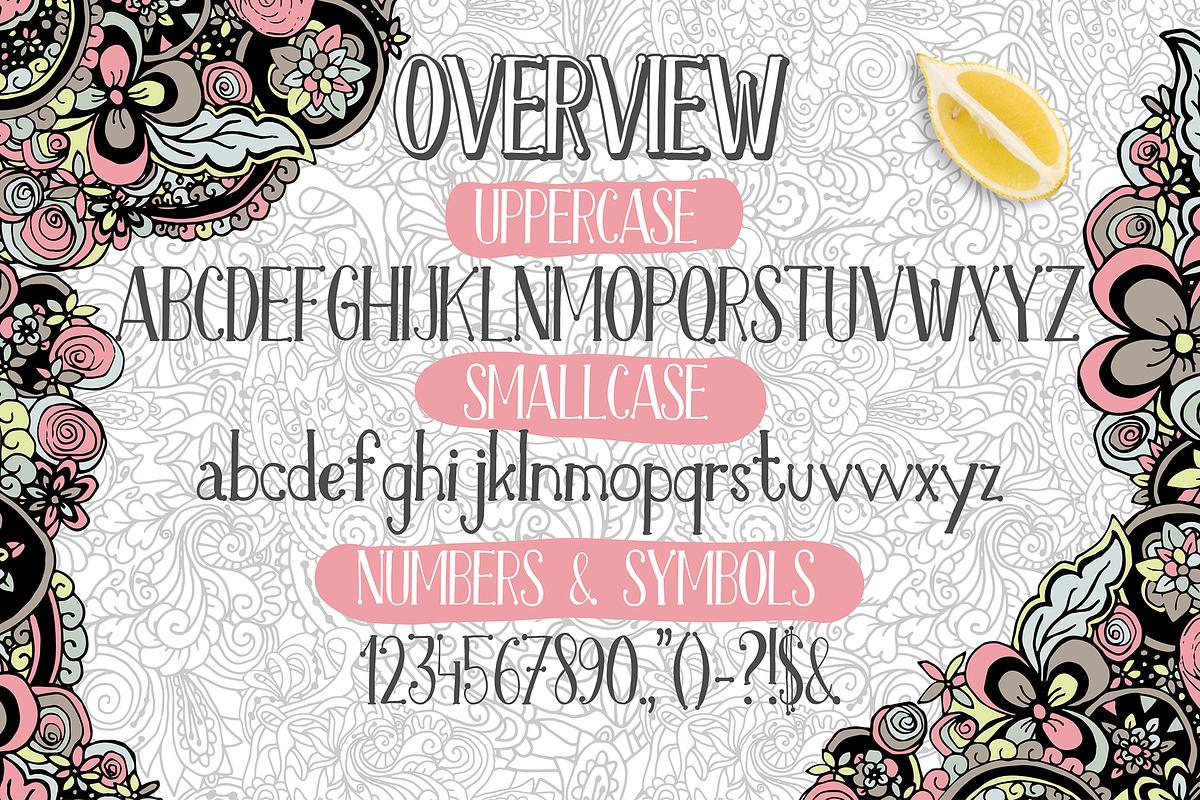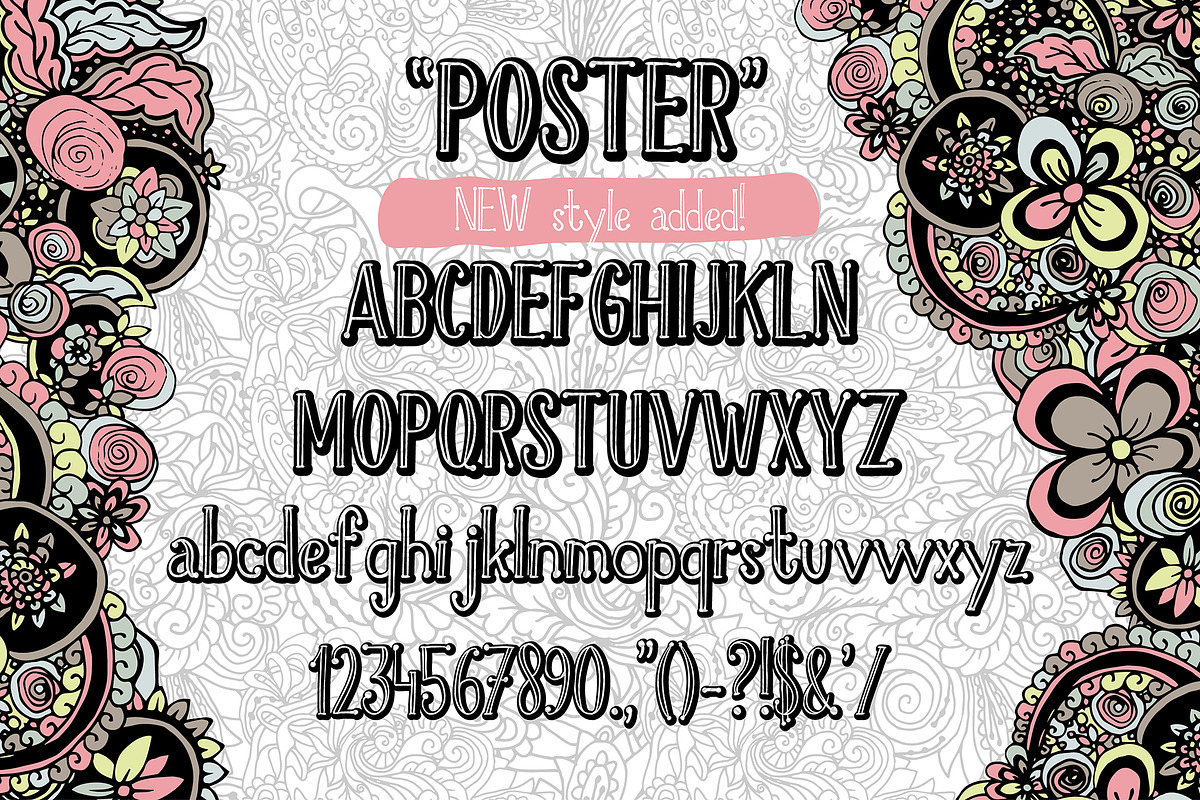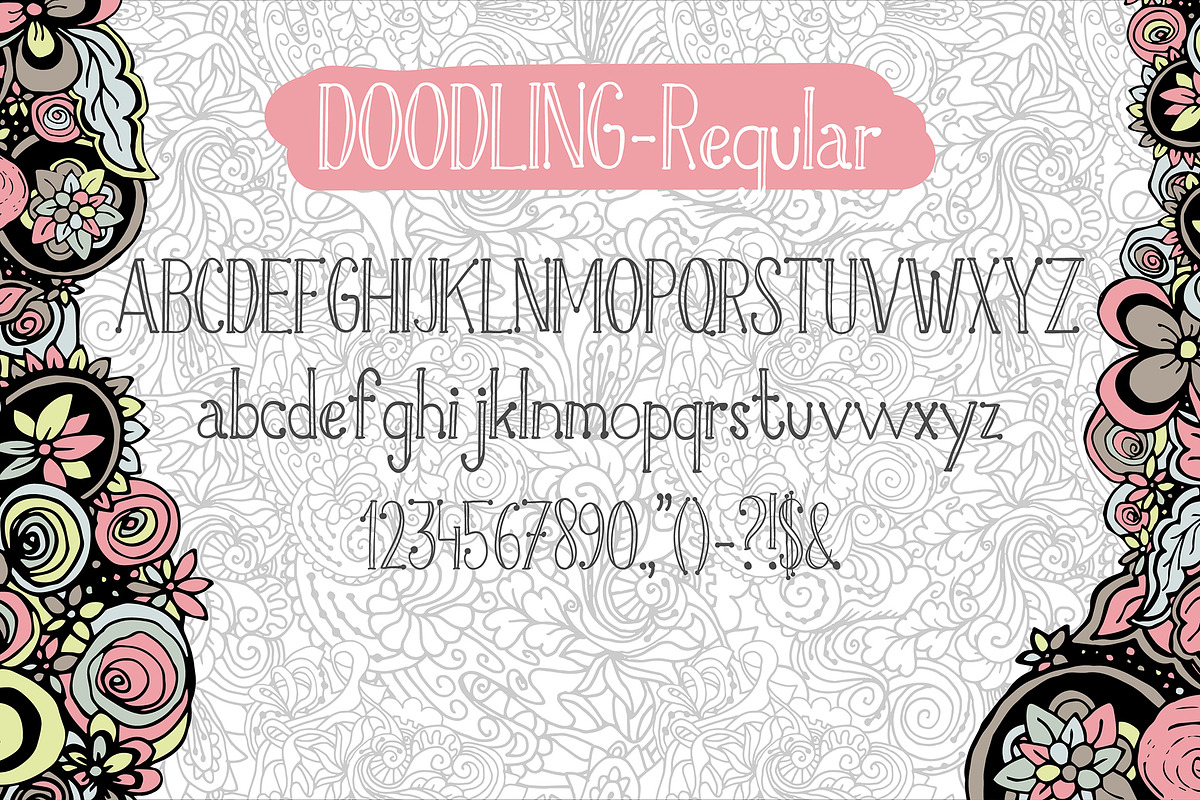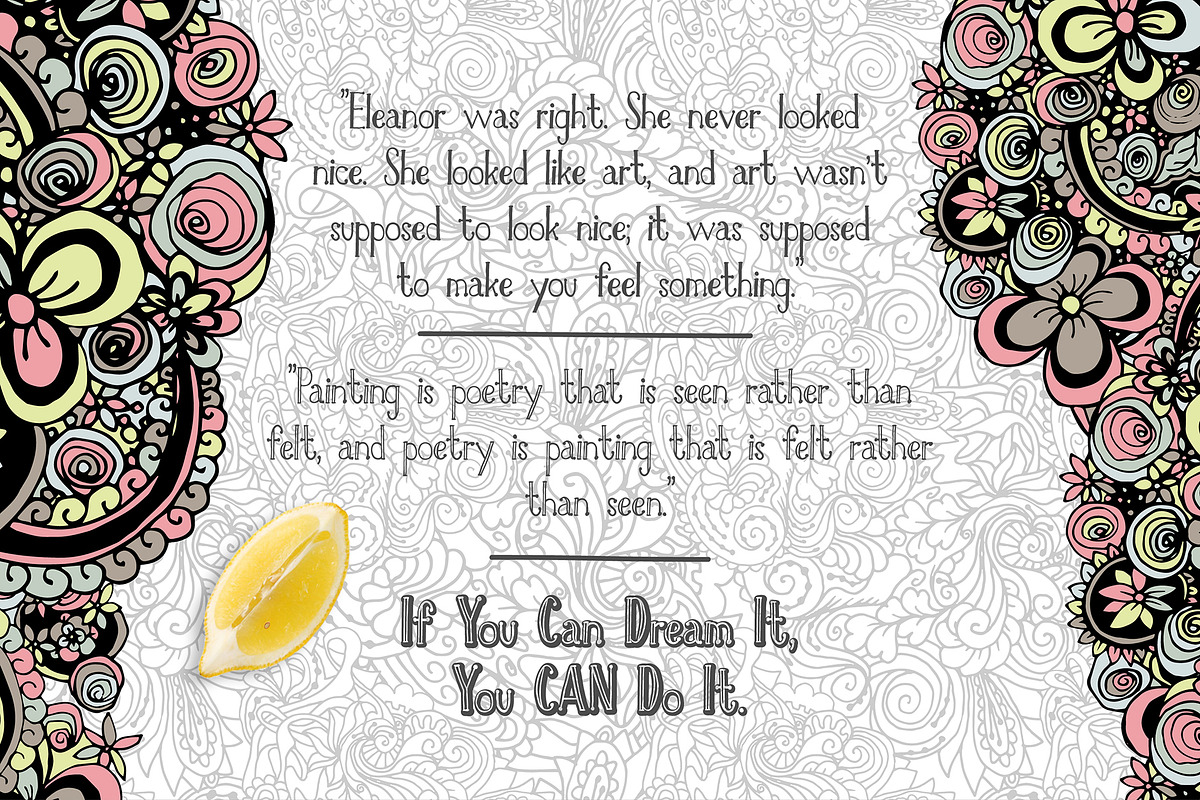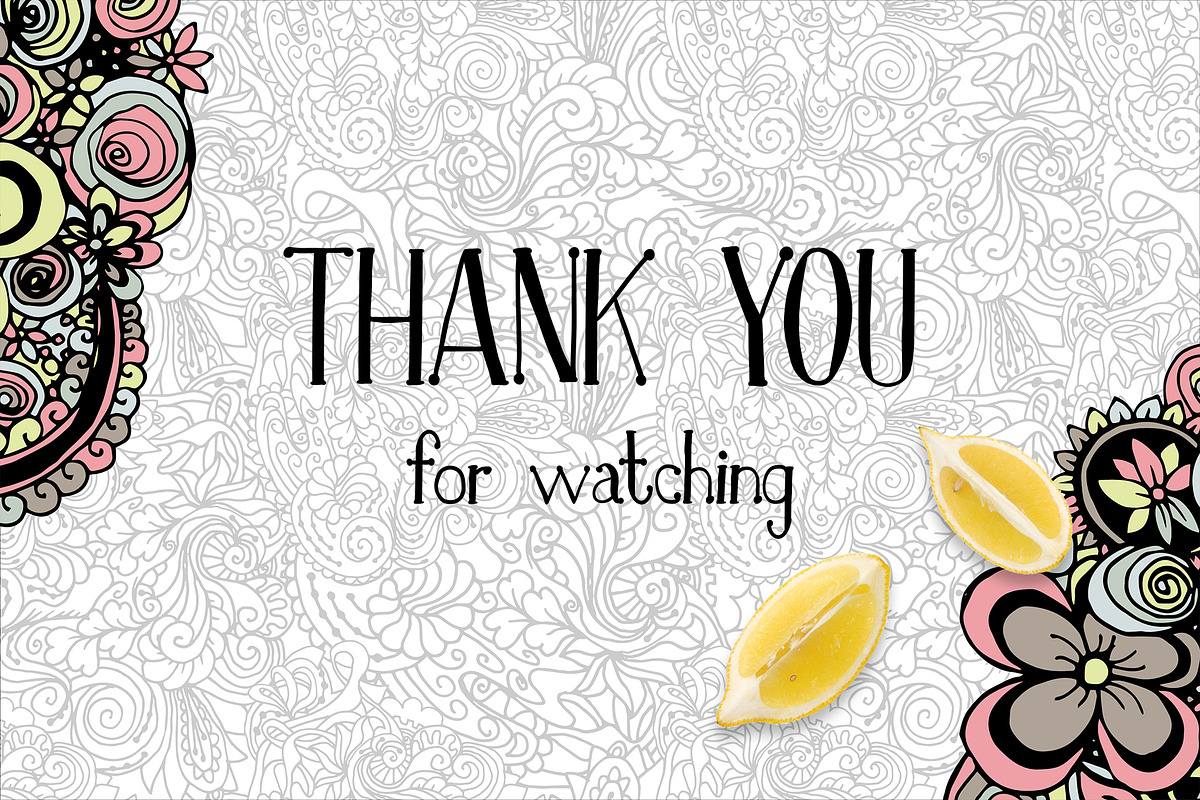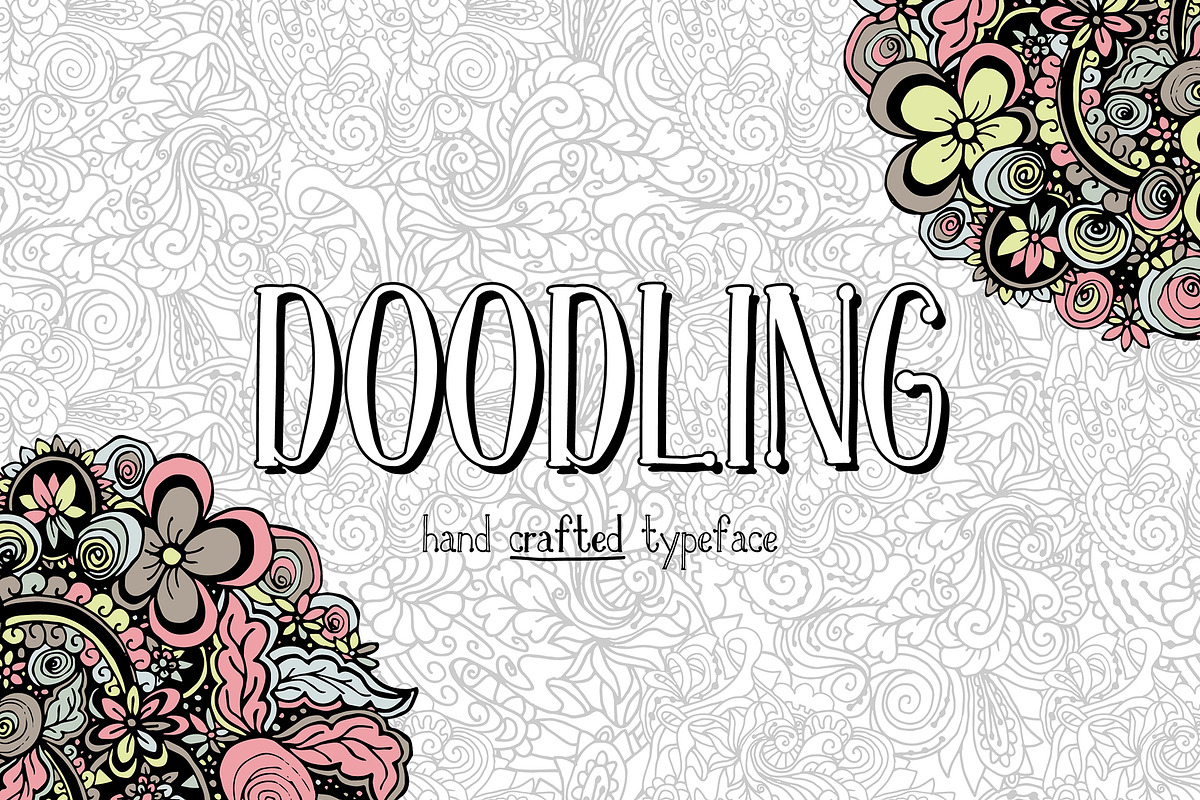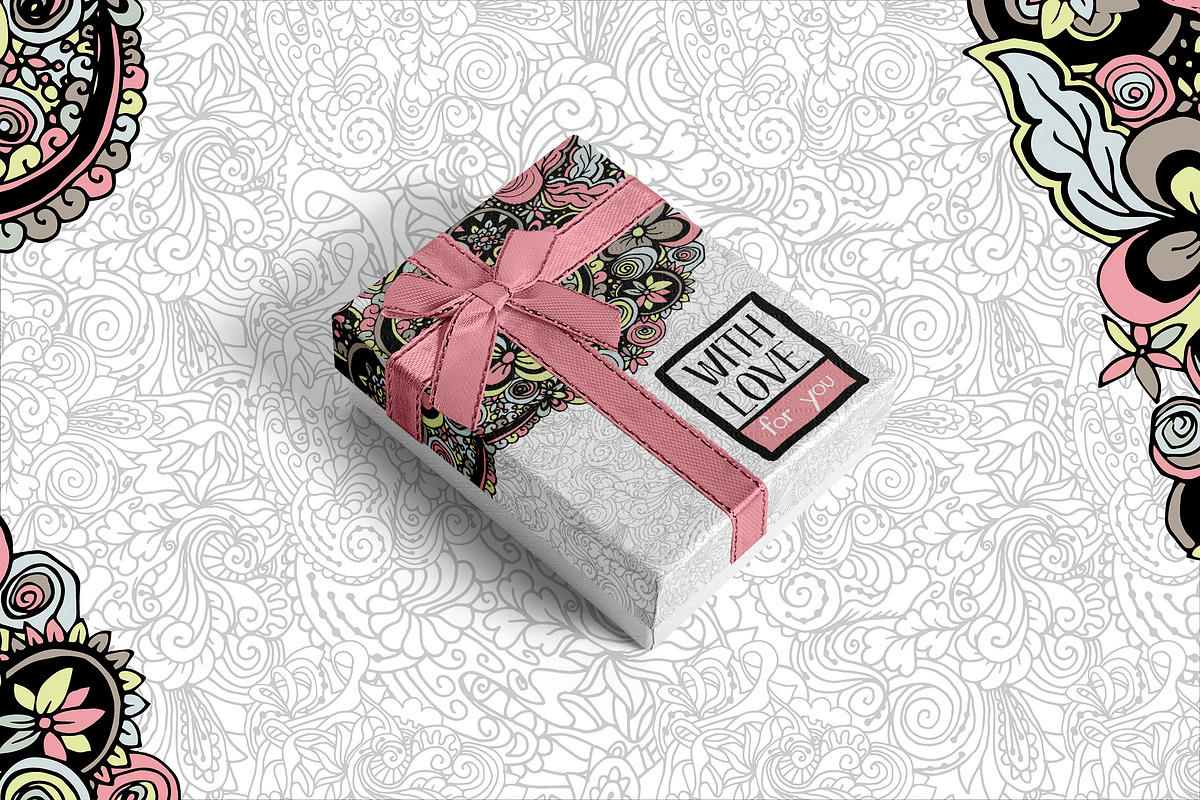
Doodling - Hand Crafted Typeface
Doodling typeface is perfect for any hand-crafted products!
- Three Styles: Bold, Regular, Poster-style Include: UPPERCASE SMALLCASE NUMBERS SYMBOLS Check all my fonts here I would be happy to see my ar
- Doodling Regular
- Doodling Bold
- Doodling Poster